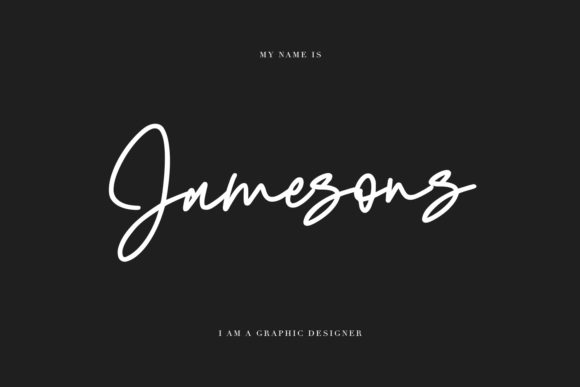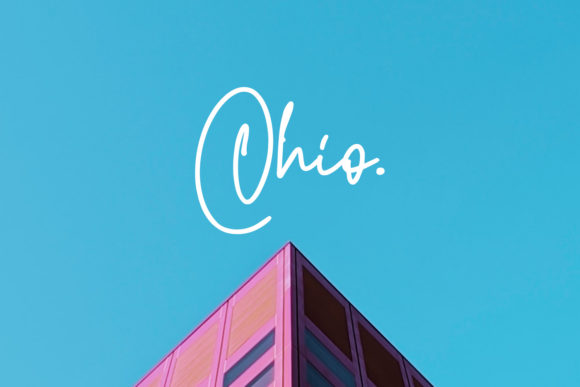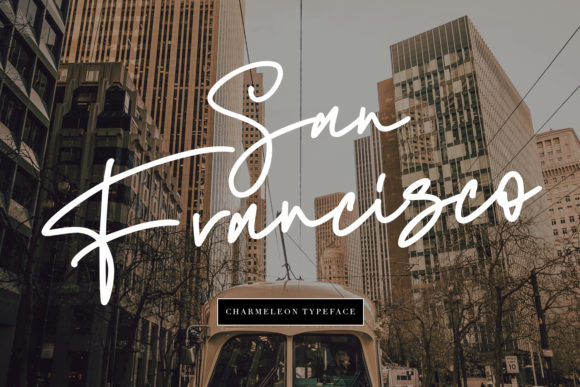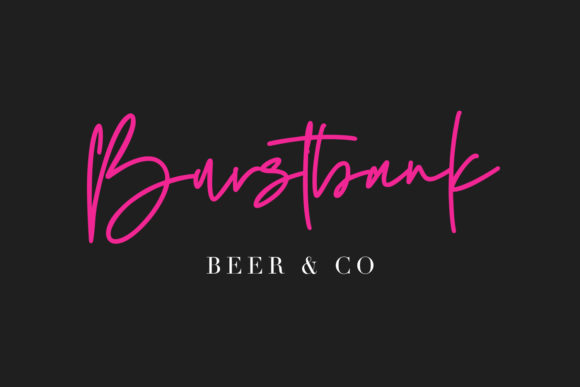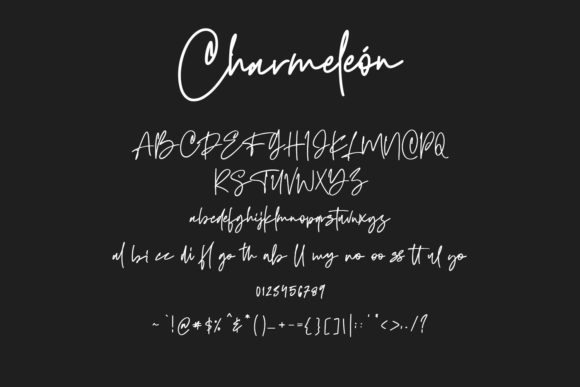
Introducing Charmeleon Font: Elevate Your Designs with Elegance and Authenticity
In the world of typography, fonts play a crucial role in conveying the tone and personality of a design. For designers and crafters seeking to add a touch of sophistication and whimsy to their creations, Charmeleon Font is an exceptional choice. This magical handwritten font is carefully crafted with a dash of elegance, blending timeless charm with authentic calligraphy.
The Essence of Charmeleon Font
Charmeleon Font boasts an incredibly classic style, reminiscent of traditional calligraphy, while maintaining a friendly and approachable feel. This beautiful combination of old-world charm and modern flair makes it an ideal choice for designers looking to create original and outstanding designs. Whether you’re working on a branding project, crafting invitations, or designing social media graphics, Charmeleon Font is sure to leave a lasting impression.
Key Features of Charmeleon Font
- Timeless Elegance: Charmeleon Font exudes a sense of classic sophistication, perfect for designs that require a touch of refinement.
- Authentic Calligraphy: The font’s handwritten style is carefully crafted to mimic the fluidity and expressiveness of traditional calligraphy.
- Friendly Feel: Despite its elegant nature, Charmeleon Font remains approachable and friendly, making it suitable for a wide range of design applications.
- Versatility: This font is highly versatile, allowing designers to experiment with various design styles, from minimalist to ornate.
Why Choose Charmeleon Font?
With so many fonts available, why should designers and crafters choose Charmeleon Font for their projects? Here are a few compelling reasons:
- Unique Character: Charmeleon Font has a distinct personality that sets it apart from more generic fonts, ensuring your designs stand out from the crowd.
- Emotional Connection: The font’s elegant and friendly nature helps create an emotional connection with your audience, making your designs more relatable and engaging.
- Easy to Read: Despite its ornate style, Charmeleon Font remains highly legible, making it suitable for body text and headlines alike.
- Supports Multiple Languages: This font supports a wide range of languages, making it an excellent choice for designers working on international projects.
Design Applications for Charmeleon Font
Charmeleon Font is an incredibly versatile typeface, suitable for a wide range of design applications. Here are a few ideas to get you started:
- Branding and Logos: Use Charmeleon Font to create elegant and memorable logos that reflect your brand’s personality.
- Invitations and Stationery: Add a touch of whimsy and sophistication to your invitations, greeting cards, and stationery with this beautiful font.
- Social Media Graphics: Elevate your social media graphics with Charmeleon Font, creating eye-catching posts that stand out in crowded feeds.
- Packaging Design: Use this font to add a touch of elegance to your packaging design, making your products more appealing to customers.
In conclusion, Charmeleon Font is an exceptional choice for designers and crafters seeking to add a touch of elegance and authenticity to their designs. With its timeless charm, friendly feel, and versatility, this magical handwritten font is sure to elevate your creations and leave a lasting impression on your audience.